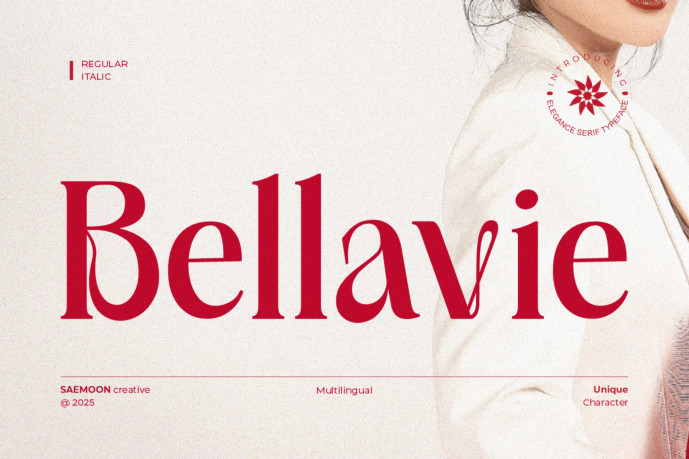
Bellavie Serif Font
Designer: saemooncreative
Bellavie Serif Font with a delicate feminine touch and a distinctive character. Its letterforms are designed with balanced proportions, soft yet defined serifs, and subtle details that exude grace and modernity.
This font includes Regular and Italic styles, offering flexibility for a wide range of design applications. Ideal for luxury branding, fashion editorials, exclusive packaging, and refined social media graphics, Bellavie brings sophistication and style to every project.
Uppercase & Lowercase
Multilingual Support
Punctuation & Symbols
Includes Regular & Italic Styles